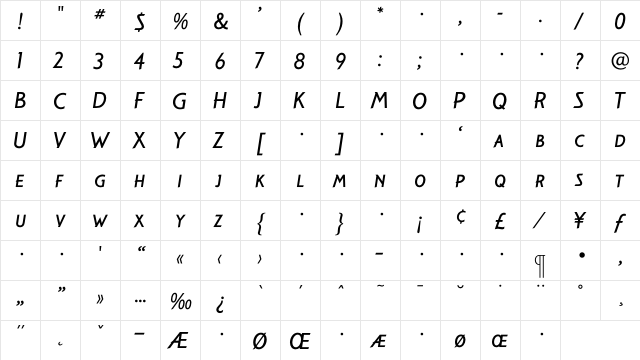
GilmoreFahrenheit Regular
Design Context for GilmoreFahrenheit Typeface
GilmoreFahrenheit is a composed and adaptable typeface that performs quietly and consistently across a wide range of design contexts.